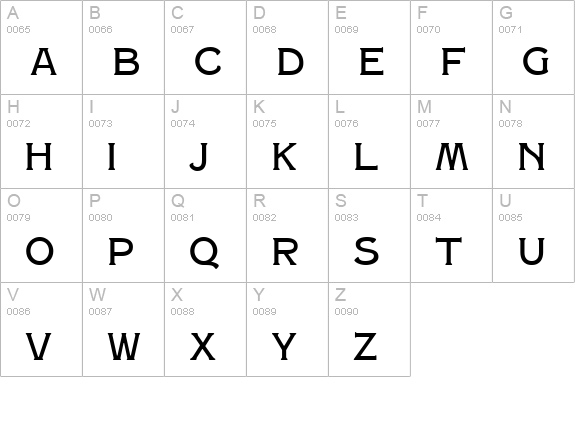
Silentina Movie font is a stunning and elegant typeface that exudes a sense of timeless sophistication. With its sharp lines and sleek curves, this font is perfect for adding a touch of class to any project. Whether you're working on a movie poster, a branding campaign, or any other creative endeavor, Silentina Movie font is sure to make a bold statement. The best part? Silentina Movie font is completely free to download at FontsMarket.com. This means that you can elevate your designs without breaking the bank. So why wait? Download Silentina Movie font today and add a touch of Hollywood glamour to your next project.